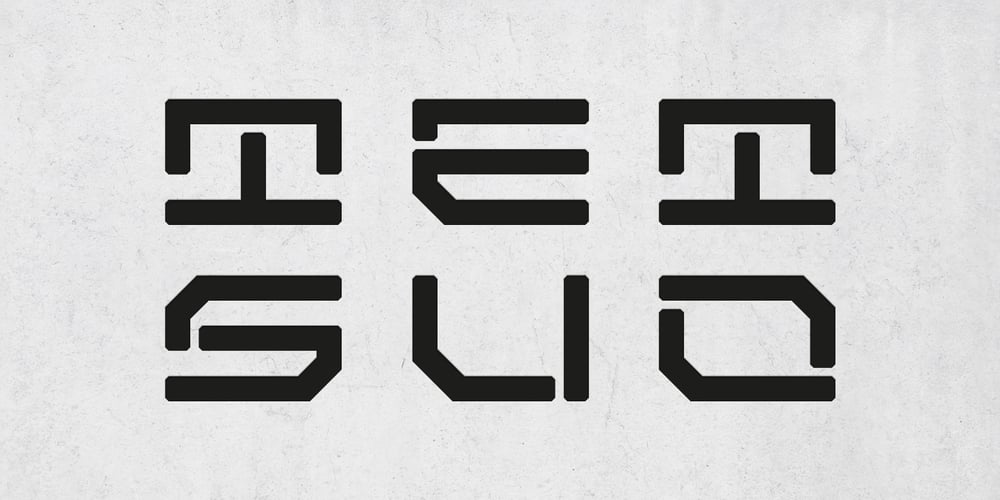
Tetsuo AT Font Family was designed by Aaron Chiffers and published by Arctype. Tetsuo AT contains 2 styles and family package options. Tetsuo is a geometric, gridded and monospaced typeface exhibiting a futuristic simplicity.